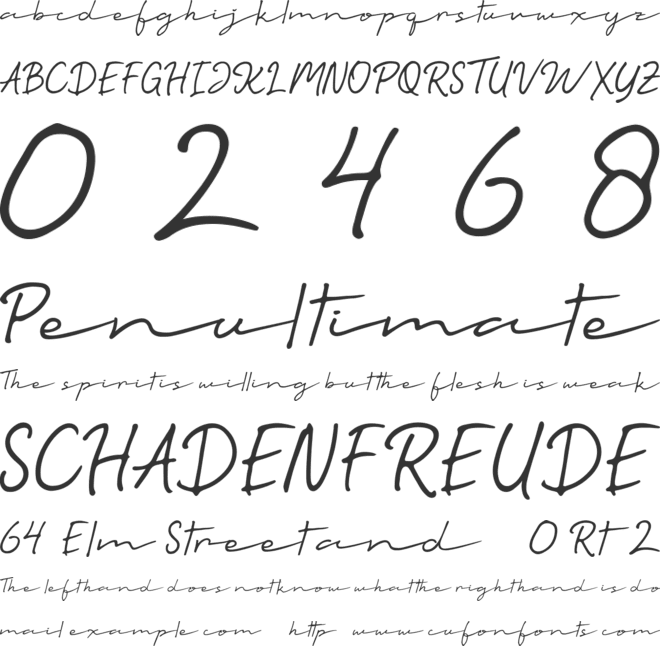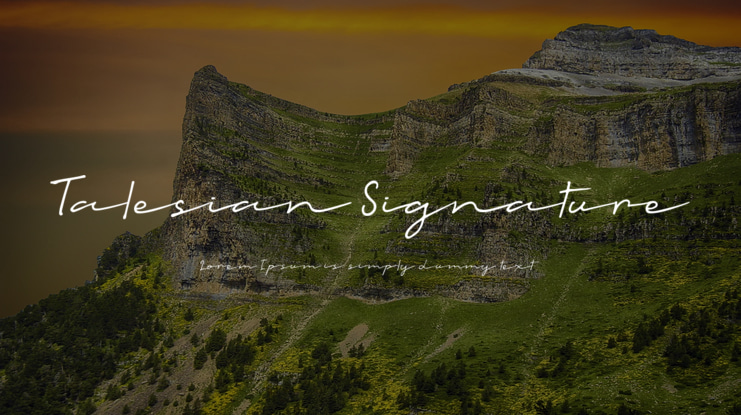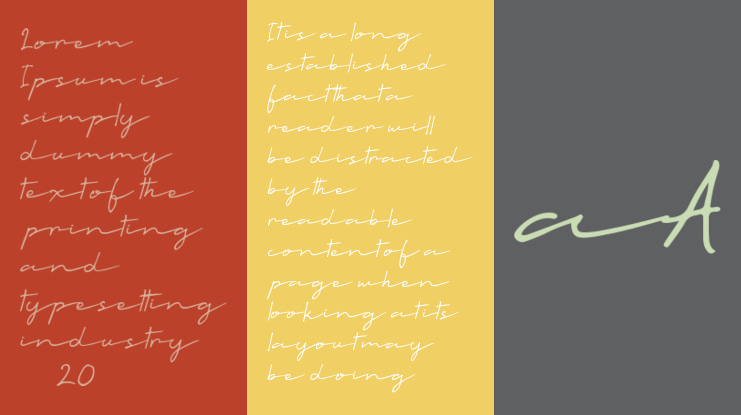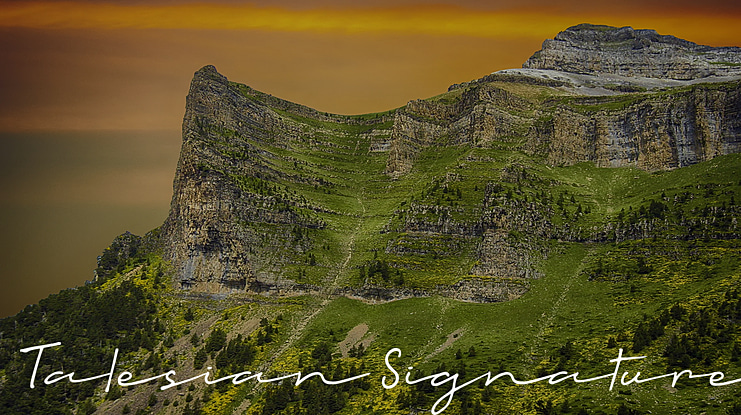
Talesian Signature Font
Talesian Signature font with original handwriting style, looks very natural and beautiful. It is suitable for boutique brand, photography, magazine, quote, business card, logo, poster and many more. There are two types of fonts: regular and bold, script is equipped with opentype features such as ligature, and multilingual support.